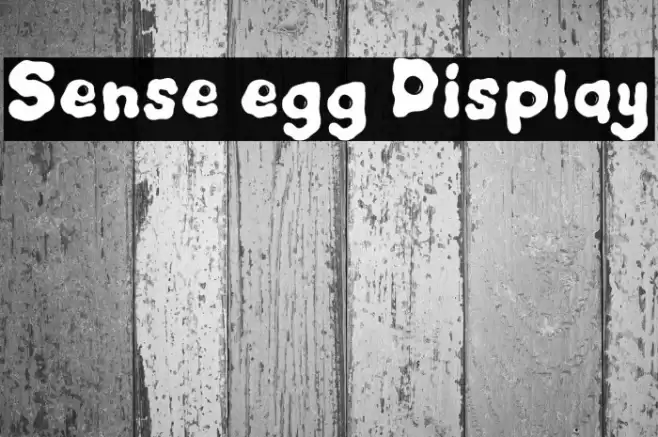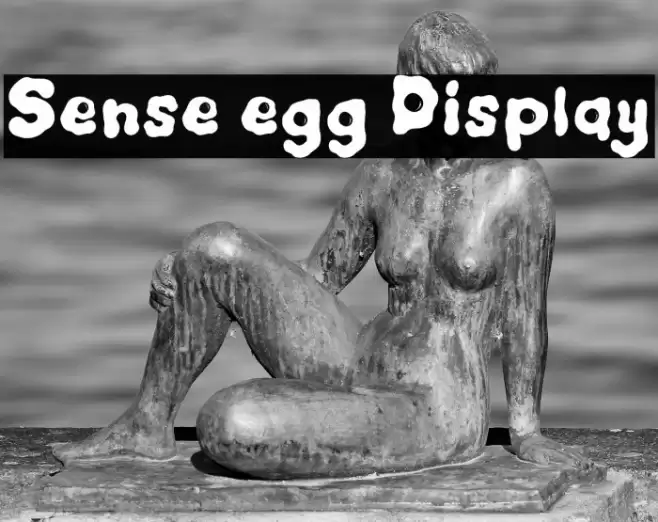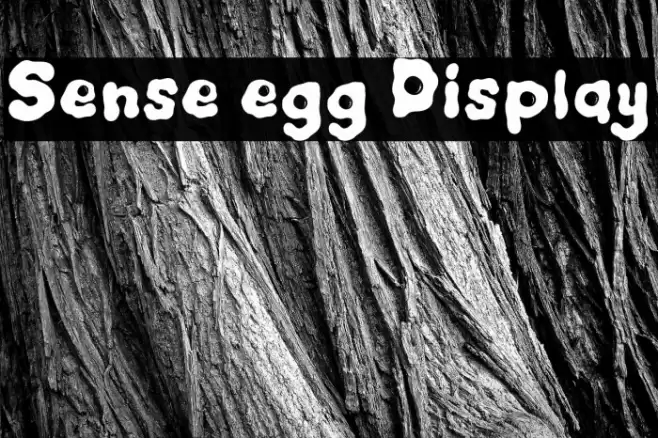
Sense egg Display Font
Sense egg Display Description
This playful and bold font features a bubbly, rounded style that gives it a whimsical and fun appearance. The characters are thick and have a soft, organic shape, reminiscent of inflated balloons or soft clay. The uppercase and lowercase letters maintain a consistent style, with rounded edges and a uniform thickness throughout. The numbers and special characters follow the same playful design, making the font cohesive and visually appealing. Its unique style makes it stand out, perfect for projects that require a touch of creativity and fun.
A playful, bubbly font with rounded, thick characters from Easter fonts.
- Font: Sense egg Display
- Proposed Projects: Ideal for children's books, playful branding, party invitations, and creative posters.
- Overall Style: Playful, Whimsical
- Use Case: Logos, Posters, Invitations